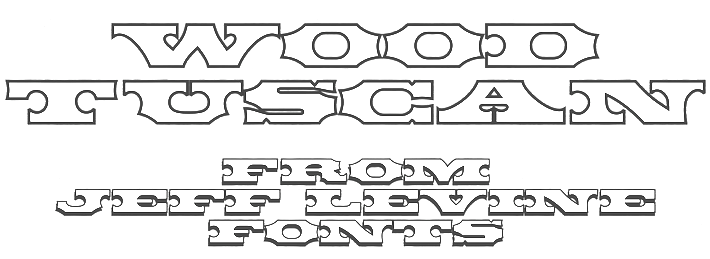
Western style faces made by Jeff Levine: - Boonville JNL (2009, Western, wood type).
- Bootblack JNL (2007).
- Bootspur JNL (2006).
- Canarsie Slab JNL (2001) could pass for a heavily slabbed Western face.
- Cattle Drive JNL (2011).
- Cloverdale JNL (2009, Western, wood type).
- Farmland JNL (2009).
- Frontiersman JNL (2011): A Tuscan face. See also Frontiersman JNL Black.
- Gower Gulch JNL (2010).
- Grande Parade JNL (2009, Western style: a decorative version of Winnetka JNL).
- Grist Mill JNL (2009).
- Homesteader (2008).
- Hoosegow JNL (2009).
- Kalvesta JNL (2012).
- Lost Hills JNL (2008, a Wild West font based on Levine's own Brogado JNL).
- Oak Ridge JNL (2009).
- Pickfair JNL (2010) is based on the vintage wood type Vandenburgh Tuscan (circa 1867).
- Old Chisholm JNL (2012).
- Overland Stage JNL (2011). A Tuscan stencil face.
- Stablehand JNL (2010).
- Tamarac JNL (2006).
- Texarkana JNL (2011): based on a classic condensed wood type from the 1800s, and embellished with stars.
- Turlock JNL (2007).
- Western Bevel JNL (2010).
- Western Block JNL (2010): Western, and almost octagonal.
- Western Railway JNL (2007).
Jeff Levine: Western style faces